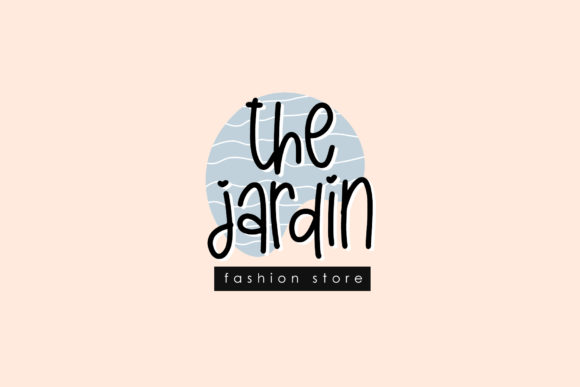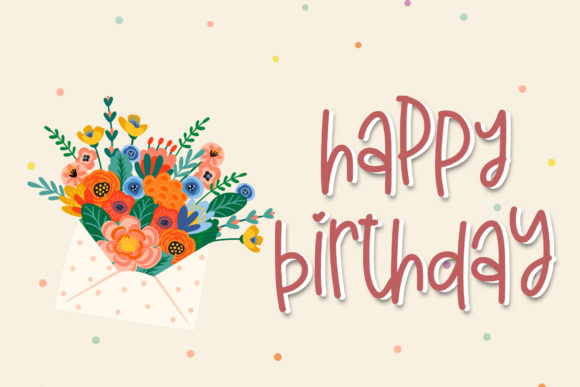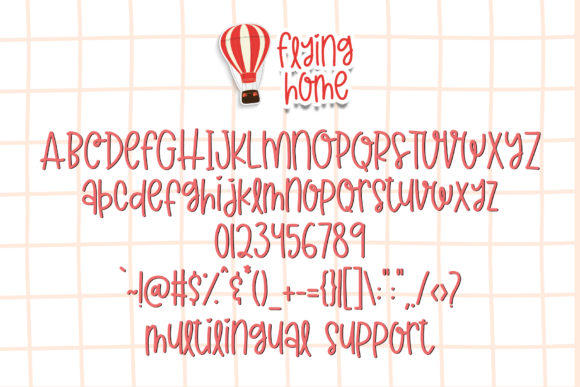
Flying Home Font: Elevate Your Designs with a Quirky and Cute Handwritten Style
Are you tired of using the same old fonts in your designs? Do you want to add a touch of personality and whimsy to your creations? Look no further than the Flying Home font! This dazzling font is a quirky and cute handwritten style that will turn any creative idea into a standout. In this article, we’ll dive into the world of Flying Home font, exploring its features, benefits, and uses, as well as provide tips and inspiration for designers and crafters.
What is Flying Home Font?
Flying Home font is a unique and charming handwritten font that is perfect for adding a personal touch to your designs. With its playful and carefree vibe, this font is ideal for projects that require a dash of whimsy and fun. Whether you’re working on a logo, branding materials, social media graphics, or craft projects, Flying Home font is sure to make your designs stand out from the crowd.
Key Features of Flying Home Font
- Quirky and Cute: Flying Home font has a distinctly quirky and cute feel that’s perfect for designers and crafters who want to add a touch of personality to their work.
- Handwritten Style: This font has a beautiful, handwritten style that’s reminiscent of handwritten notes and letters.
- Highly Versatile: Flying Home font can be used for a wide range of projects, from logos and branding materials to social media graphics and craft projects.
- Easy to Read: Despite its playful style, Flying Home font is highly legible and easy to read, making it perfect for use in body text and captions.
Benefits of Using Flying Home Font
So why should you choose Flying Home font for your next project? Here are just a few benefits of using this amazing font:
- Adds Personality: Flying Home font adds a touch of personality and whimsy to your designs, helping them to stand out from the crowd.
- Perfect for Branding: This font is ideal for branding materials, such as logos and business cards, where you want to make a lasting impression.
- Great for Social Media: Flying Home font is perfect for social media graphics, where you want to grab the attention of your followers and stand out in a crowded feed.
Using Flying Home Font in Your Designs
So how can you use Flying Home font in your designs? Here are a few ideas to get you started:
- Logos and Branding: Use Flying Home font to create a unique and memorable logo that reflects your brand’s personality.
- Social Media Graphics: Add a touch of whimsy to your social media graphics, such as Facebook posts, Instagram stories, and Twitter headers.
- Craft Projects: Use Flying Home font to add a personal touch to your craft projects, such as handmade cards, gift tags, and scrapbook pages.
- Signage and Displays: This font is perfect for use in signage and displays, where you want to grab the attention of your audience.
Here are a few tips and inspiration to help you get the most out of Flying Home font:
- Experiment with Colors: Try pairing Flying Home font with different colors and textures to add depth and interest to your designs.
- Mix and Match: Don’t be afraid to mix and match Flying Home font with other fonts and styles to create a unique look.
- Use it for Headings: Flying Home font is perfect for use in headings and titles, where you want to make a bold statement.
In conclusion, Flying Home font is a quirky and cute handwritten font that’s perfect for designers and crafters who want to add a touch of personality to their work. With its highly versatile style, ease of use, and range of benefits, this font is sure to become a favorite in your design arsenal. So why not give it a try today and see the difference it can make in your designs?